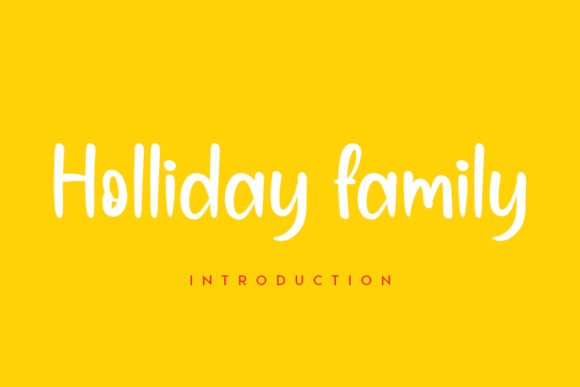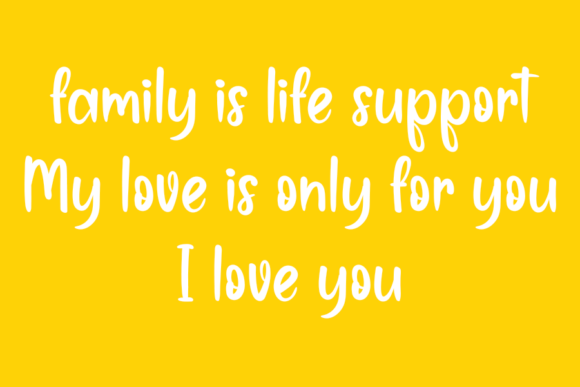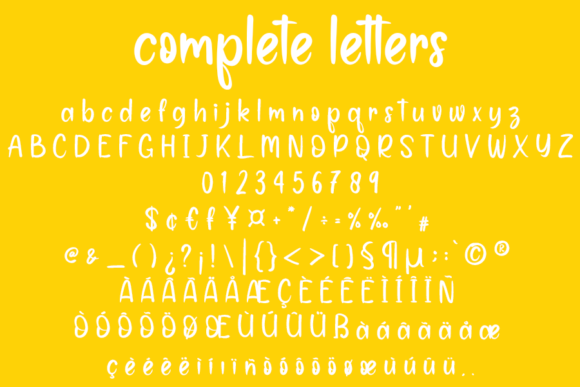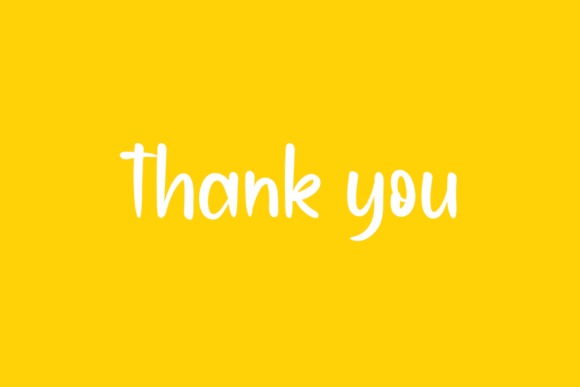
Holliday Family Font
About Holliday Family Font
Holliday Family is a delicate, elegant and flowing handwritten font. It has beautiful and well balanced characters and as a result, it matches a wide pool of designs. Add it to your most creative ideas and notice how it makes them come alive!